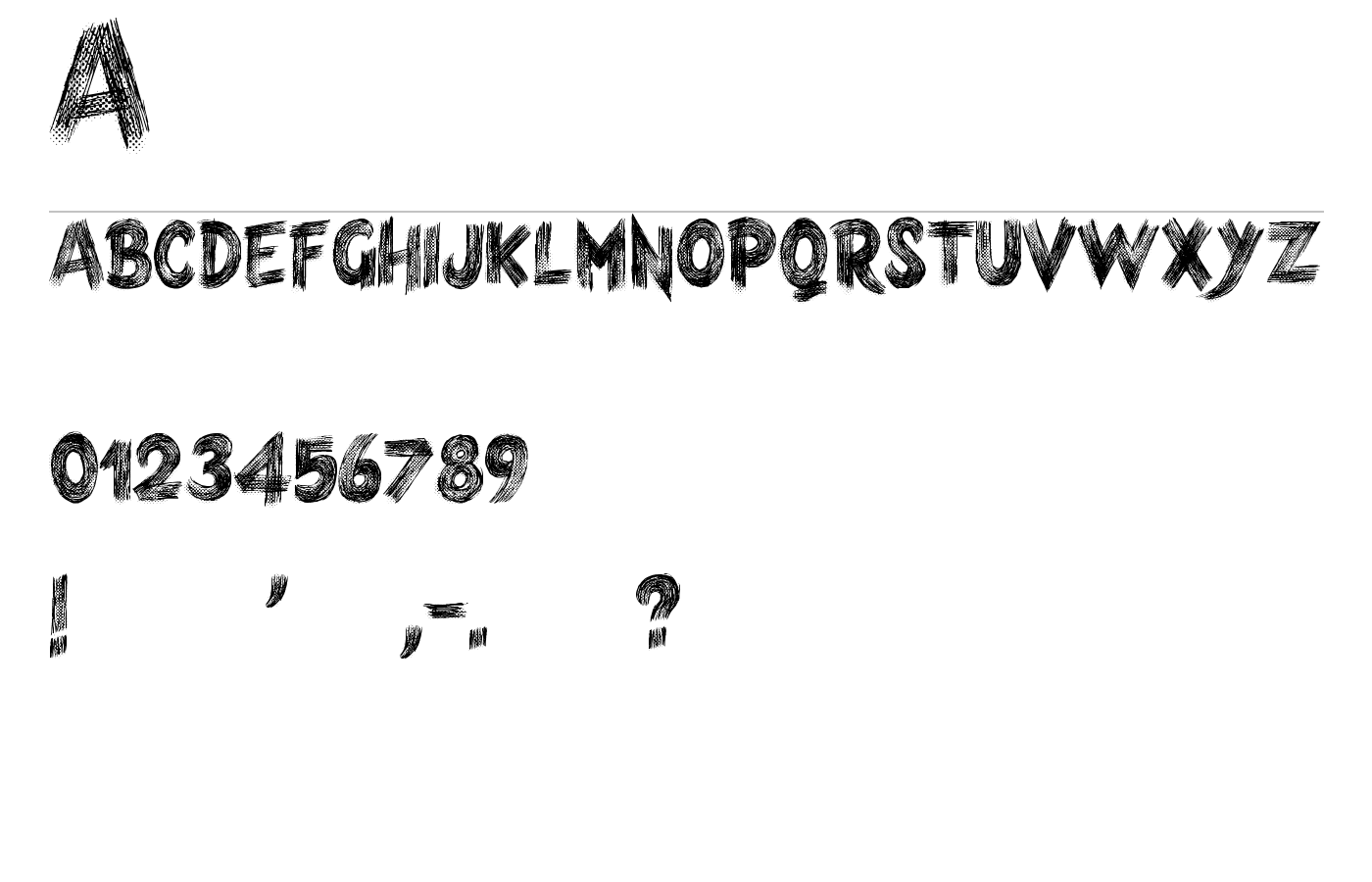
Armagedon is a bold, hand-drawn sans serif font with a textured, sketch-like appearance that creates a dynamic and edgy feel. Its rough strokes and irregular lines give it a playful yet intense personality, perfect for designs that want to convey energy and a raw, artistic vibe. This font works well for posters, logos, and creative projects where a unique, standout style is needed.
Armagedon Font
About Armagedon Font